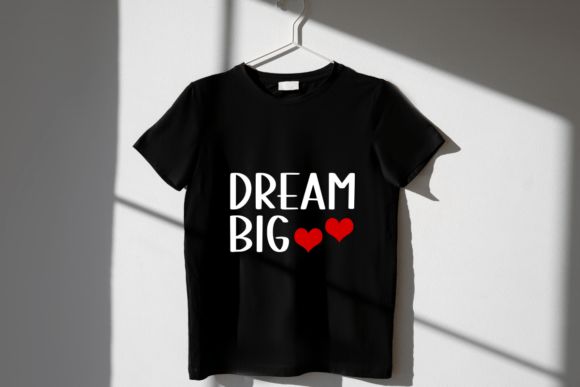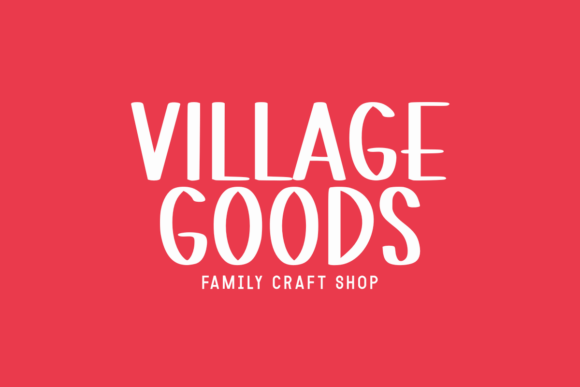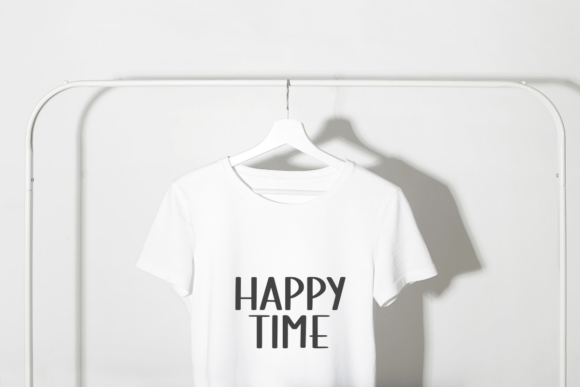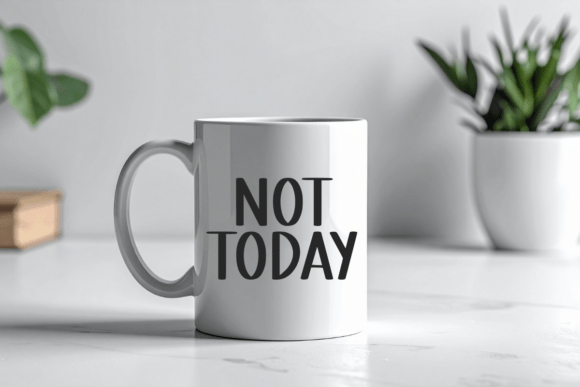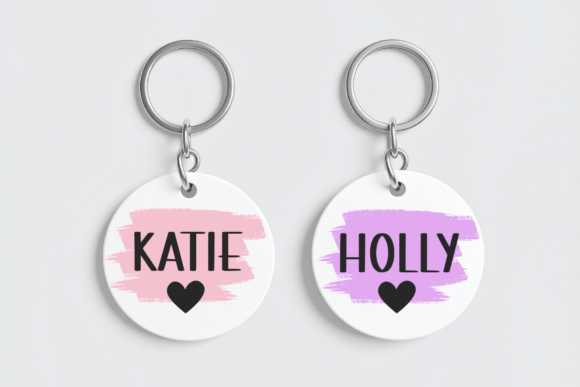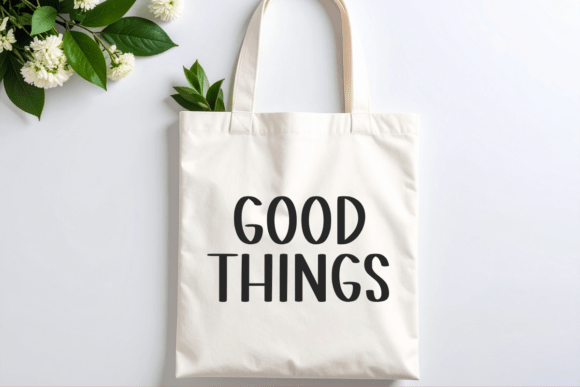
Meet Your New Best Friend: Amazing Productive Font
We’ve all been there – sitting at our desks, staring at a blank page, trying to come up with the perfect design. The cursor blinks, our minds go blank, and we’re left wondering where to start. But what if I told you that there’s a font that can spark creativity, make your designs pop, and bring a smile to your face? Enter the Amazing Productive Font, a sassy and sarcastic handwritten font that’s about to become your new go-to.
This versatile font is perfect for designers who want to add a personal touch to their projects. With its rounded and friendly look, you can use it for a wide range of creative projects, from journals and planners to Canva templates and DIY crafts. Whether you’re a seasoned designer or just starting out, the Amazing Productive Font is a valuable addition to your toolkit.
- Unique Characteristics: Features a unique blend of rounded and geometric shapes, creating a visually appealing and highly legible font that reduces eye strain and improves reading speed.
Designer Review: Amazing Productive Font
Overall, I think the Amazing Productive Font is a decent addition to any designer’s toolkit. ✨ Here are a few things that really work well for me:
- Legibility: This font is incredibly easy to read, even at smaller font sizes.
- Customization: It has a wide range of styles and weights, making it perfect for creating visually appealing typography.
- Cross-platform compatibility: It works seamlessly across various operating systems and devices.
However, there are some limitations that might be a concern for some designers:
- ⚠️ Limited expressive power: While it’s great for body text and titles, it lacks the personality and flair that some designers might be looking for.
- ⚠️ Not ideal for creative typography: The font is designed to be clean and straightforward, which might make it less suitable for more experimental or artistic projects.
In conclusion, the Amazing Productive Font is a solid choice for designers who prioritize clarity and ease of use. While it may not be the most exciting option, it’s a reliable and versatile font that can help get the job done.
Getting the Most Out of Amazing Productive Font
For best results, use the Amazing Productive Font in conjunction with a clear and concise message.
Experiment with different font sizes, styles, and colors to create visual hierarchy and emphasis.
Use the Amazing Productive Font consistently throughout your design to create a cohesive look and feel.
The Amazing Productive Font is ideal for:
Business presentations and reports
Marketing materials and brochures
Website headers and footers
Product labels and packaging
Alternatives to Amazing Productive Font
Open Sans is a clean and modern sans-serif font, suitable for digital products and web applications. It’s highly legible and works well in a variety of contexts, from body text to headings.
Compared to Amazing Productive Font, Open Sans is more versatile and widely used, making it a safer choice for large-scale projects. While Amazing Productive Font is designed to promote productivity, Open Sans focuses on readability and visual simplicity.